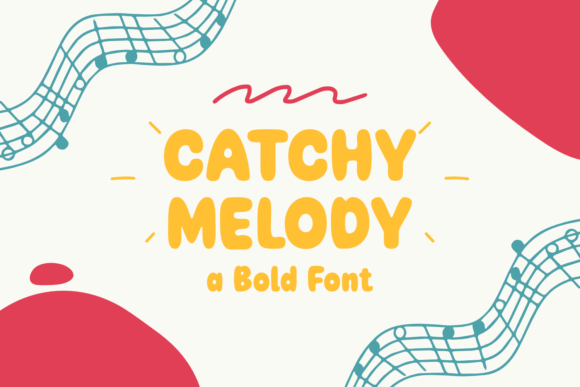
Introducing Catchy Melody Font: A Symphony of Joy, Creativity, and Expression!
Welcome to the enchanting world of Catchy Melody Font, a playful, bold, and captivating display font that radiates sheer joy and friendliness. Created by the talented nhfonts, this font is a true masterpiece designed to add a touch of whimsy and charm to your creative projects. Dive into the magical realm of Catchy Melody Font and discover why it's the perfect choice for all your digital adventures.
Crafted with meticulous attention to detail, Catchy Melody Font boasts a unique blend of childlike innocence and playful boldness. Its rounded edges and cheerful curves dance across the screen, evoking a sense of warmth and happiness. Whether you're a seasoned designer or just starting your creative journey, Catchy Melody Font is sure to become your trusted companion, ready to bring life to your ideas.
Step into the Boundless World of Creativity with Catchy Melody Font:
As a versatile and easy-to-use display font, Catchy Melody Font opens up endless possibilities for your creative endeavors. Dive into the world of digital design and transform your ideas into stunning visuals. Craft eye-catching social media posts, design captivating presentations, create personalized greeting cards, and let your imagination run wild.
With Catchy Melody Font, every project becomes a delightful symphony of colors and shapes. Its bold and friendly characters add an instant touch of charm to logos, posters, and flyers, making them stand out from the crowd. Whether you're designing for a playful children's book or a vibrant marketing campaign, this font will effortlessly elevate your work.
Embrace the Joy of Effortless Design with Catchy Melody Font:
Experience the sheer joy of effortless design as you watch your ideas come to life with minimal effort. No matter your design background, Catchy Melody Font empowers you to create visually stunning projects that exude personality and charm.
A Perfect Match for Canva: Your Imagination's Playground:
For those who love the creative freedom of Canva, Catchy Melody Font is an absolute game-changer. Seamlessly integrate this delightful font into your Canva designs and watch your projects transform before your eyes. Let the playful charm of Catchy Melody Font dance across your social media posts, presentations, and marketing materials, leaving a lasting impression on your audience.
Discover the Magic of Catchy Melody Font Today: